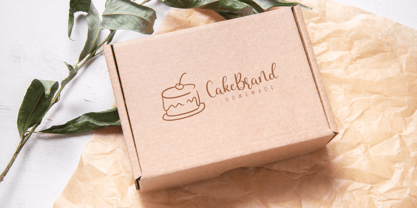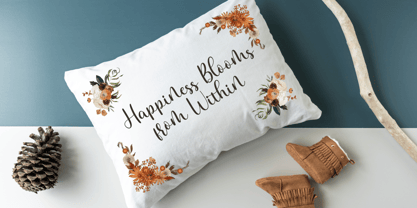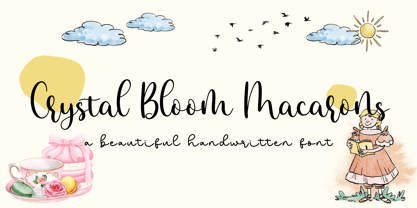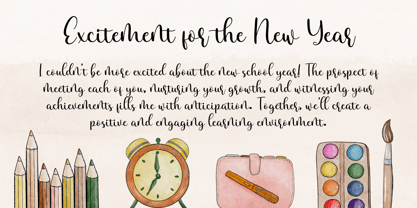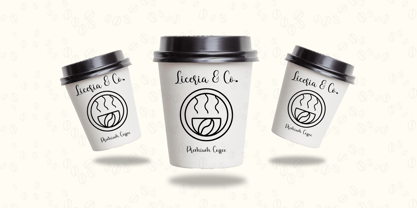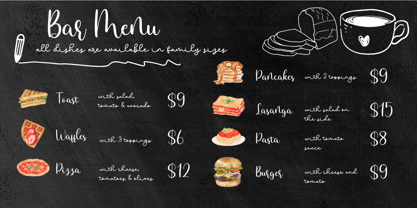
Crystal Bloom Macarons
The Crystal Bloom Macarons Font Family was designed by Dian Haniffan Hadi and published by Beary. Crystal Bloom Macarons contains 1 styles.
Introducing a special creative product designed with love, just for you. Our fonts are crafted to provide a remarkable experience that will leave a lasting impression.
This script font combines elegance and modernity, featuring artistic strokes that exude sophistication and charm. Whether you’re designing for formal events or adding a personal touch to your projects, this typeface is versatile and inspiring.